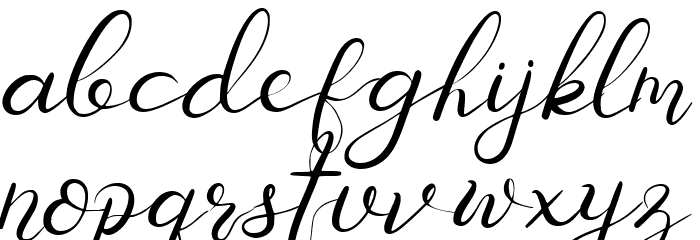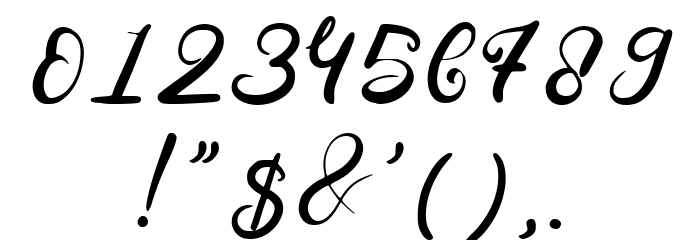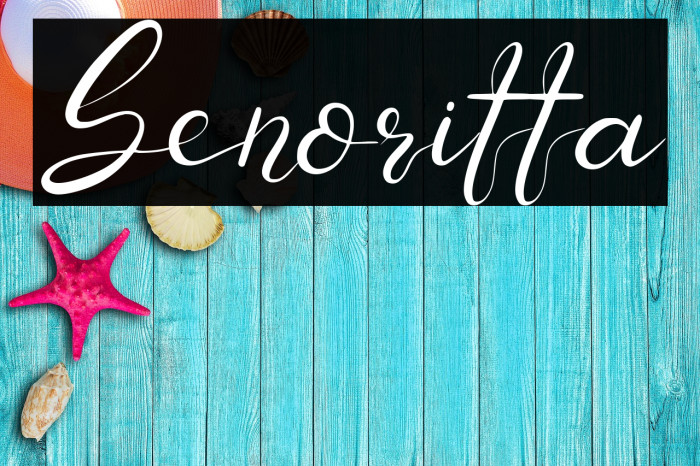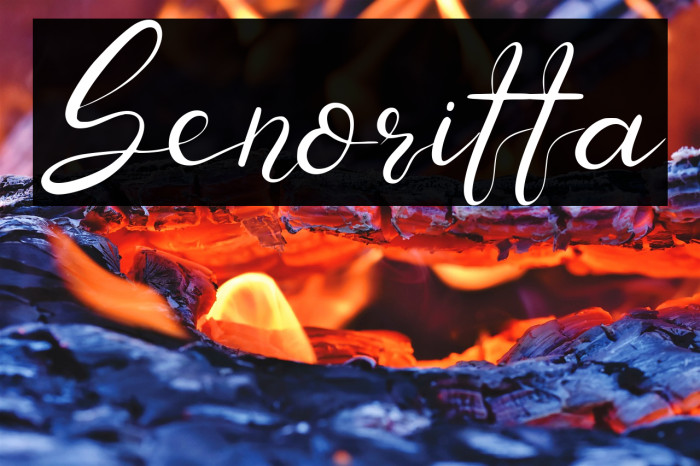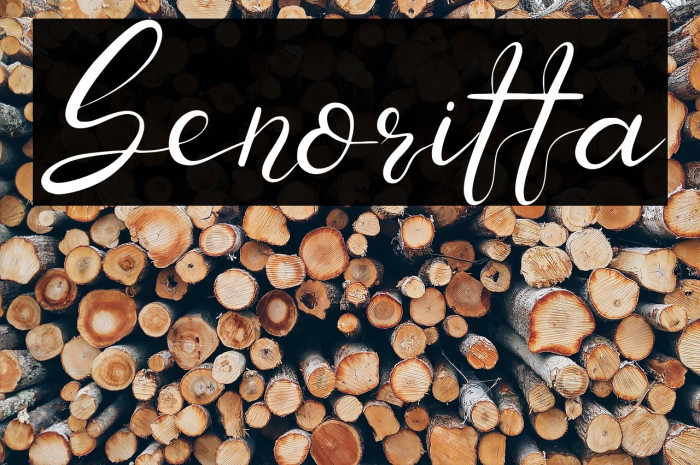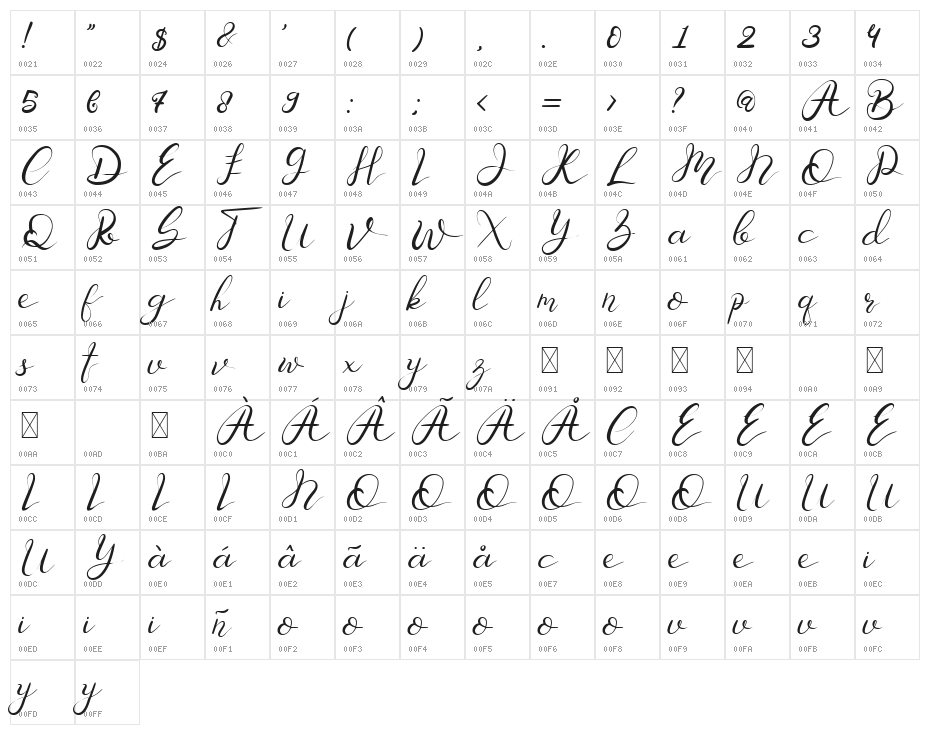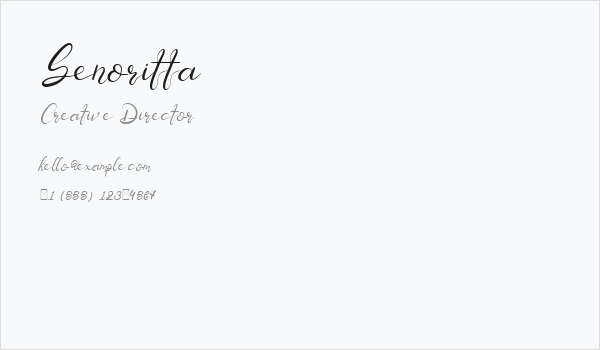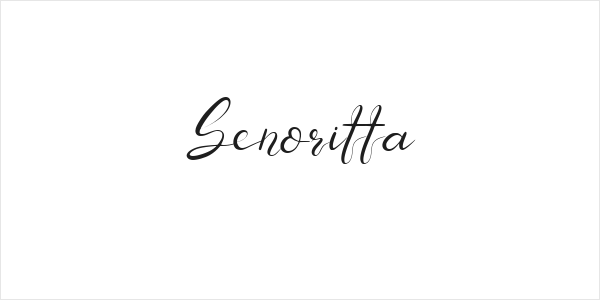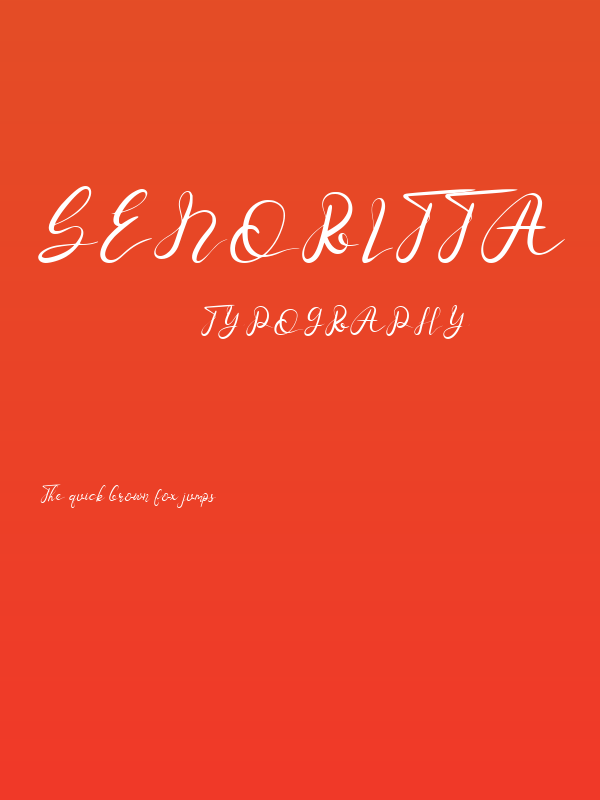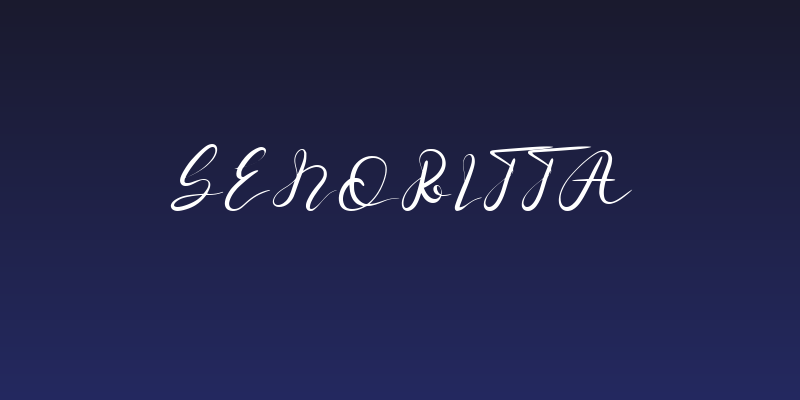
Senoritta Font
This elegant script font features a flowing, cursive style with graceful loops and swashes. The uppercase letters are characterized by their sweeping curves and decorative flourishes, while the lowercase letters maintain a consistent, fluid motion. The numerals are designed with a similar flair, ensuring a cohesive look across all characters. The special characters, including punctuation marks, are crafted to match the overall aesthetic, making this font ideal for projects that require a touch of sophistication and elegance.
A flowing, cursive script font with elegant loops and swashes.
- Font: Senoritta
by Naharstd - Weight: Regular
- Proposed Projects: Ideal for wedding invitations, elegant branding, personal stationery, and decorative signage.
- Overall Style: Elegant, Decorative
- Use Case: Logos, Invitations, Decorative text